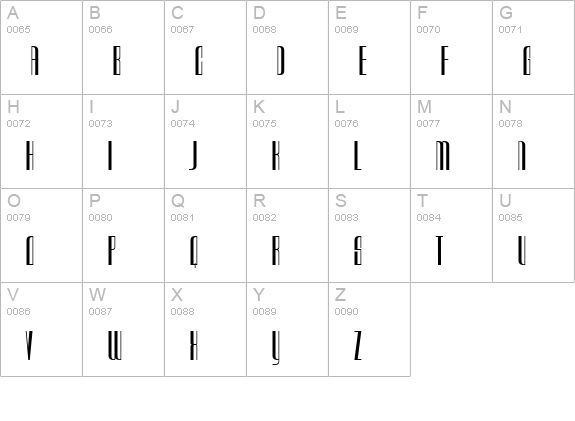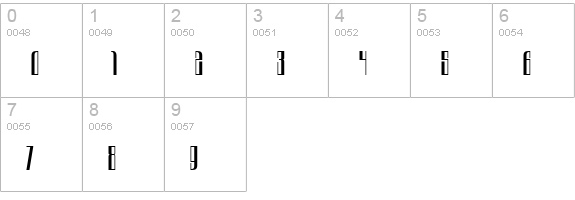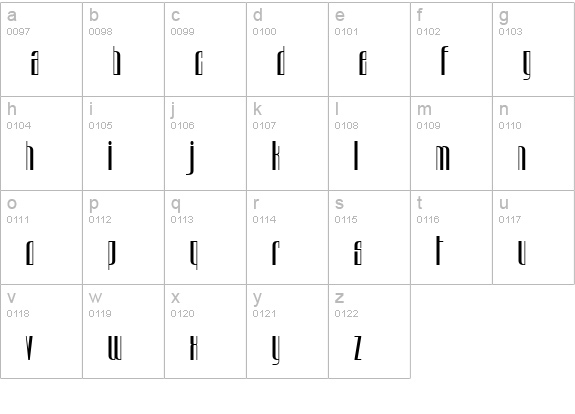
Urkelian Television Dynasty Font Details
Introducing the Urkelian Television Dynasty font, a breathtaking typographic masterpiece that captures the essence of classic television shows from yesteryears. This font encapsulates the nostalgia, charm, and sophistication of a bygone era, bringing back the golden age of television right at your fingertips. Urkelian Television Dynasty font is a perfect blend of elegance and playfulness, with its refined letterforms and quirky details. Each character is meticulously crafted, showcasing a unique personality that adds character and flair to any design project. Whether you're creating a vintage-inspired logo, designing a retro poster, or crafting a captivating headline, this font will effortlessly transport your audience back in time. One of the most remarkable features of Urkelian Television Dynasty font is its versatility. It can seamlessly adapt to a wide range of design styles and themes, from the glamorous art deco era to the whimsical world of 1950s sitcoms. This font effortlessly evokes the emotions and memories associated with these iconic shows, making it a must-have for any designer who wants to add a touch of nostalgia and authenticity. But what makes Urkelian Television Dynasty font truly special is that it is available for free! Yes, you read that right. This extraordinary font can be downloaded at no cost from FontsMarket.com. We believe that great design should be accessible to everyone, and by offering this font for free, we hope to inspire and empower designers around the world to create extraordinary work. So, whether you're a professional designer, a passionate hobbyist, or simply a lover of all things vintage, Urkelian Television Dynasty font is the perfect addition to your typographic arsenal. Download it today from FontsMarket.com and embark on a journey through time, where classic television meets modern design. It's time to bring back the magic of the small screen with Urkelian Television Dynasty font.